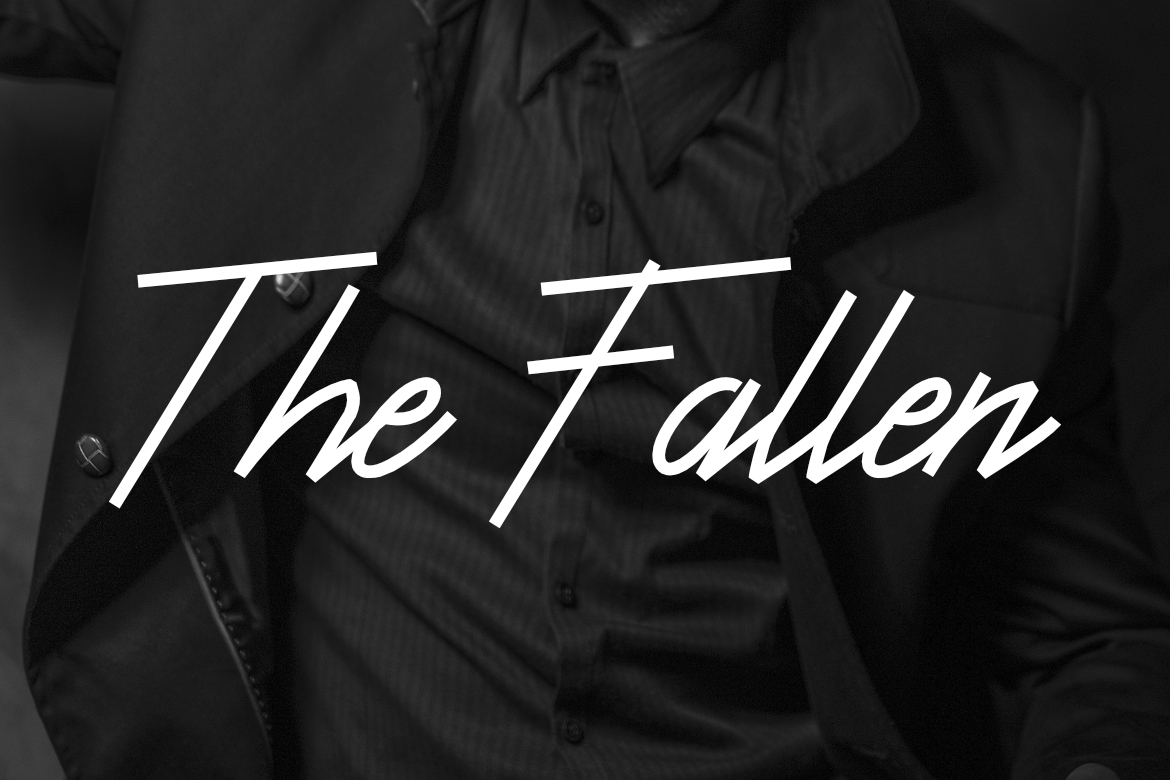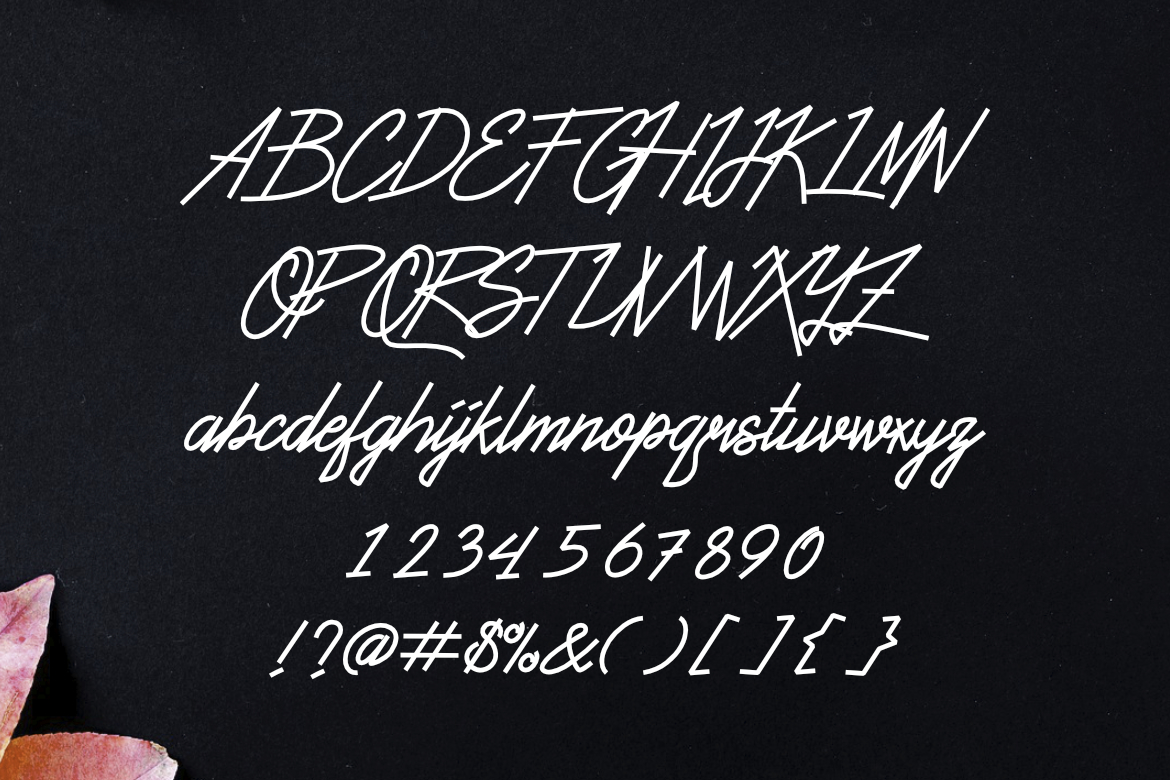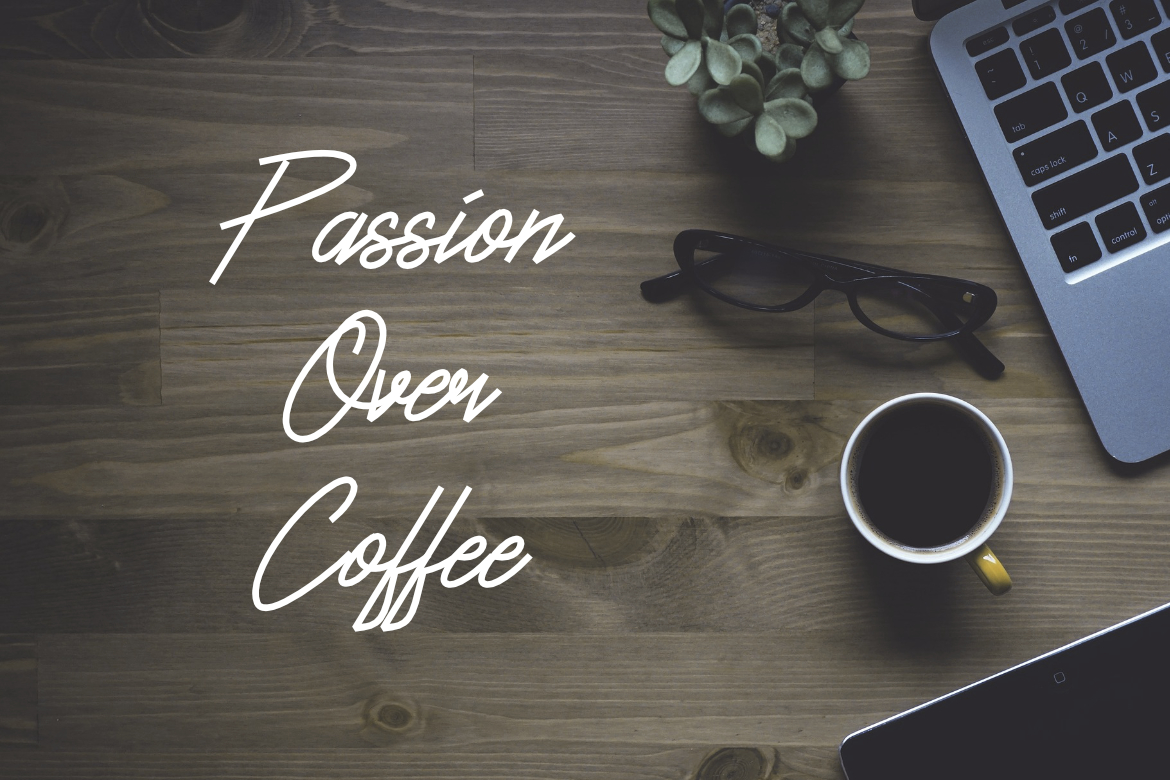
The Fallen Font
About The Fallen Font
The Fallen is an elegant and cool font, perfect for a large range of designs. This font is suitable for hip styles, and can add a lot of charm to your projects.